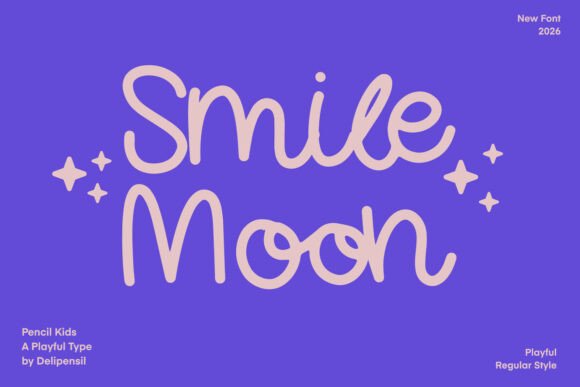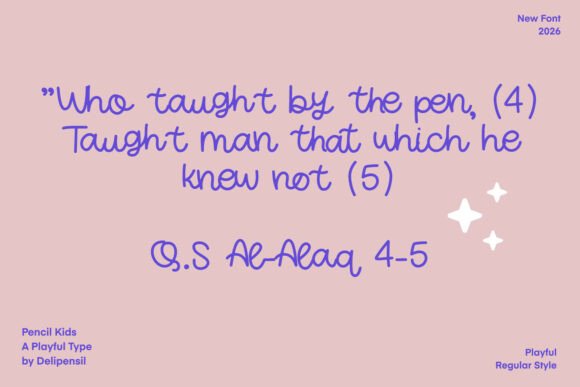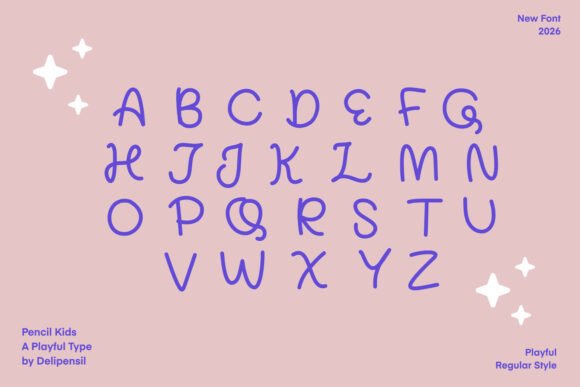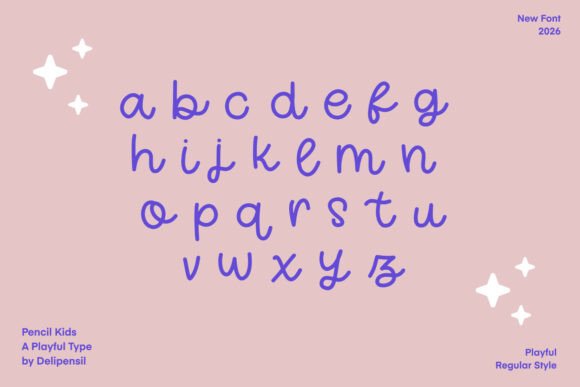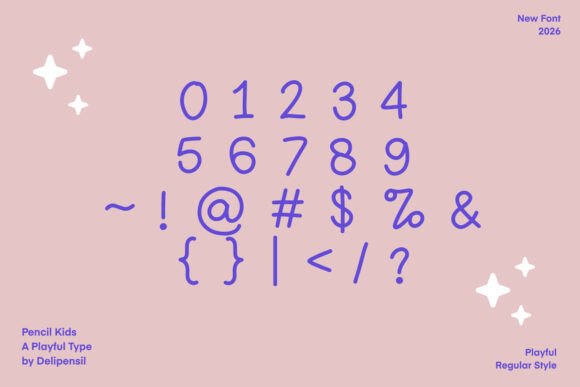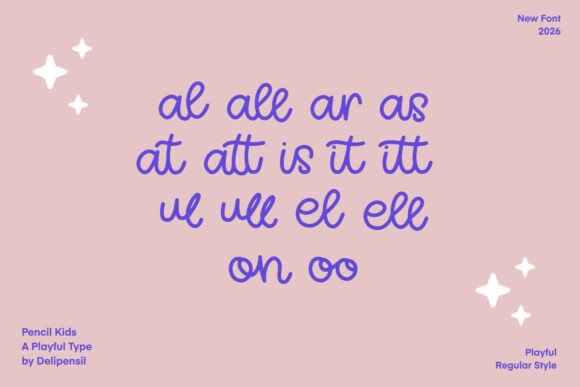
Introduction to Pencil Kids Font Font
Fonts play a crucial role in design, and the Pencil Kids Font font is a typeface that brings both character and versatility to any project. Whether you’re working on a branding project, a website, or a print design, the Pencil Kids Font font offers a unique style that can elevate your work.
Pencil Kids is a fun and playful handwritten font inspired by the natural strokes of a pencil.
Designed to capture the charm of children’s doodles and school-time creativity, this font brings a cheerful and friendly feel to any project With its slightly rough edges and organic lines, Pencil Kids feels authentic, casual, and full of personality—perfect for designs that need a warm and youthful touch.
Key Features of Pencil Kids Font Font
Why Choose Pencil Kids Font Font?
The Pencil Kids Font font is more than just a typeface – it’s a design tool that helps you communicate your message with style and clarity. Its unique character set and versatile design make it suitable for a wide range of applications, from elegant invitations to bold headlines.
With its carefully crafted letterforms and balanced proportions, the Pencil Kids Font font ensures readability and visual appeal across all mediums.
What makes Pencil Kids Font font special?
The Pencil Kids Font font stands out with its unique design, exceptional readability, and versatility across various design applications.